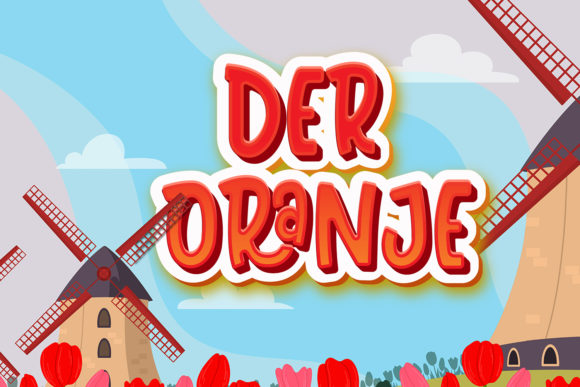
Introduction to Litch in Holland Font
Have you ever stared at a blank canvas, searching for the perfect font to bring your creative project to life? The moment when everything falls into place and your design starts to radiate with personality is truly magical. That’s exactly what the Litch in Holland Font can do for you.
As a valuable addition to any design resource, this adorable display font is sure to add a touch of whimsy and charm to your work. With its transparent background and high-quality design, Litch in Holland Font is perfect for designers who want to make a lasting impression. Whether you’re working on a free download project or a paid commission, this font is sure to elevate your designs and make them stand out in a crowd.
So, what are you waiting for? Dive into the world of Litch in Holland Font and discover the endless possibilities it has to offer. With its playful and quirky feel, this font is sure to bring joy and excitement to your creative endeavors.
Key Features of Litch in Holland Font
- Unique Design:** Litch in Holland Font is a distinctive design resource that can elevate your creative project with its unique aesthetic.
- High-Quality Font:** Litch in Holland Font is a high-quality design resource that offers a transparent background, allowing for easy customization and integration into your creative project.
- Perfect for Creative Projects:** Litch in Holland Font is a versatile design resource that is perfect for a wide range of creative projects, from graphic design to digital art.
Honest Review: Litch in Holland Font
As a designer, I’m always on the lookout for high-quality fonts to elevate my creative projects. Recently, I came across the Litch in Holland Font, and I’m excited to share my honest review with you.
- ✨ Beautifully designed, with a unique blend of modern and vintage elements.
- ✨ Highly versatile, making it suitable for a wide range of creative projects, from digital design to print materials.
- ✨ High-quality font files, ensuring smooth rendering and minimal distortion.
- ⚠️ Limited character set, which may be a concern for designers working with non-English scripts.
- ⚠️ Transparent background, which can be challenging to work with for designers who prefer a more subtle background.
Overall, I’m impressed with the Litch in Holland Font. While it has some limitations, its unique design and high quality make it a valuable addition to any designer’s toolkit. If you’re looking for a creative and free design resource, I highly recommend giving it a try.
The Litch in Holland Font is a versatile design resource ideal for creative projects. Its transparent background and high-quality design make it a perfect addition to any project.
Tips for Getting the Most Out of Litch in Holland Font
Use the Litch in Holland Font to add a touch of elegance and sophistication to your designs. Experiment with different font sizes and styles to create unique and eye-catching effects.